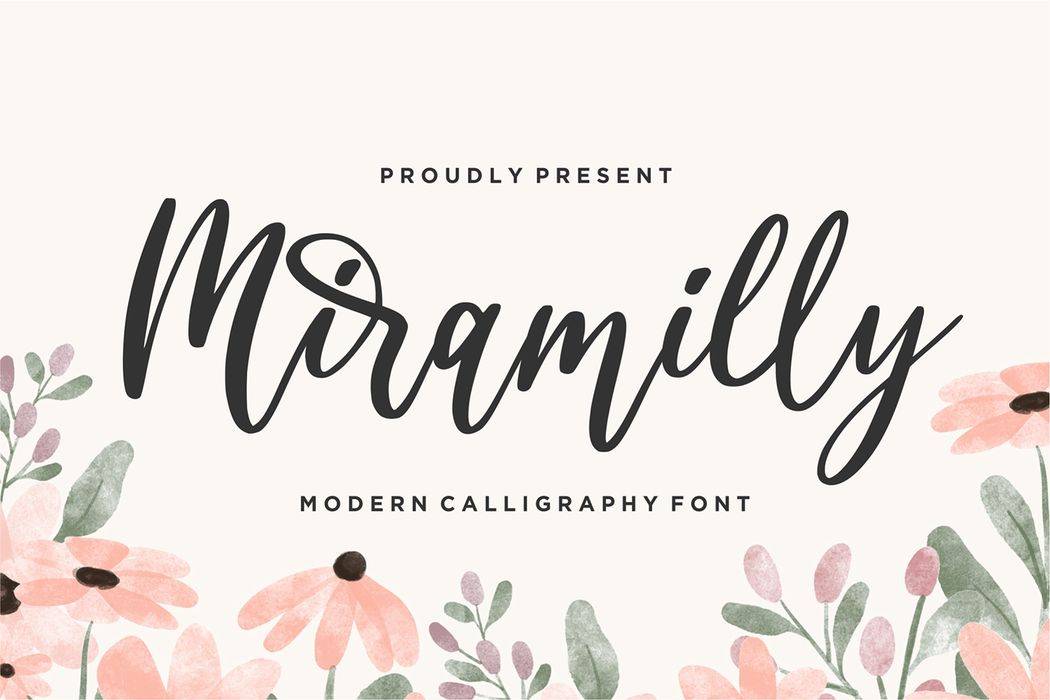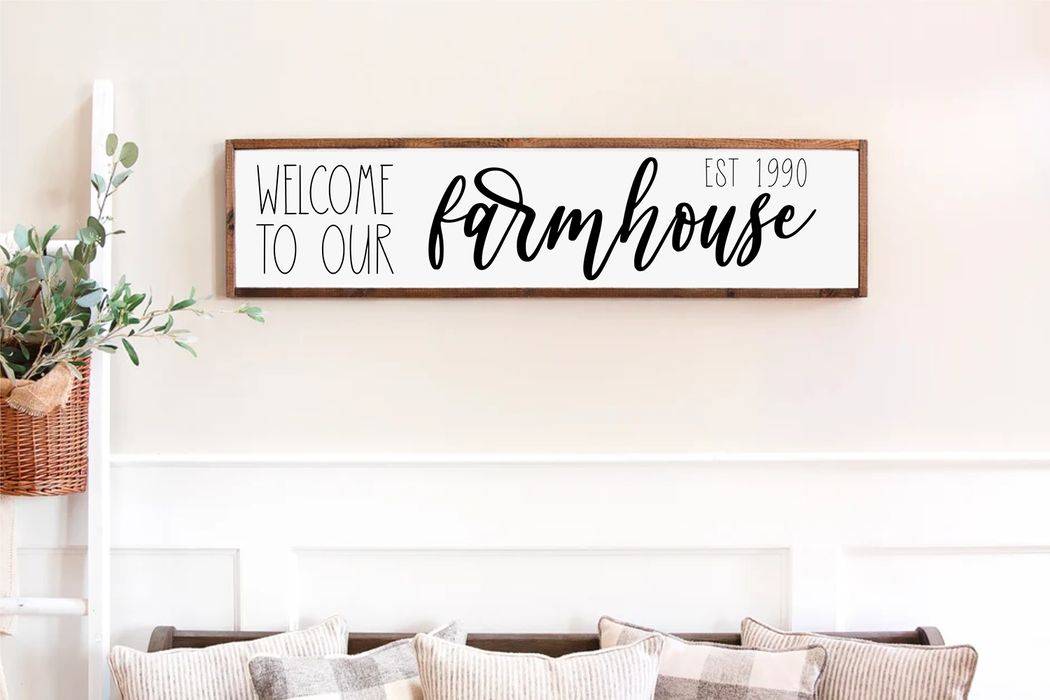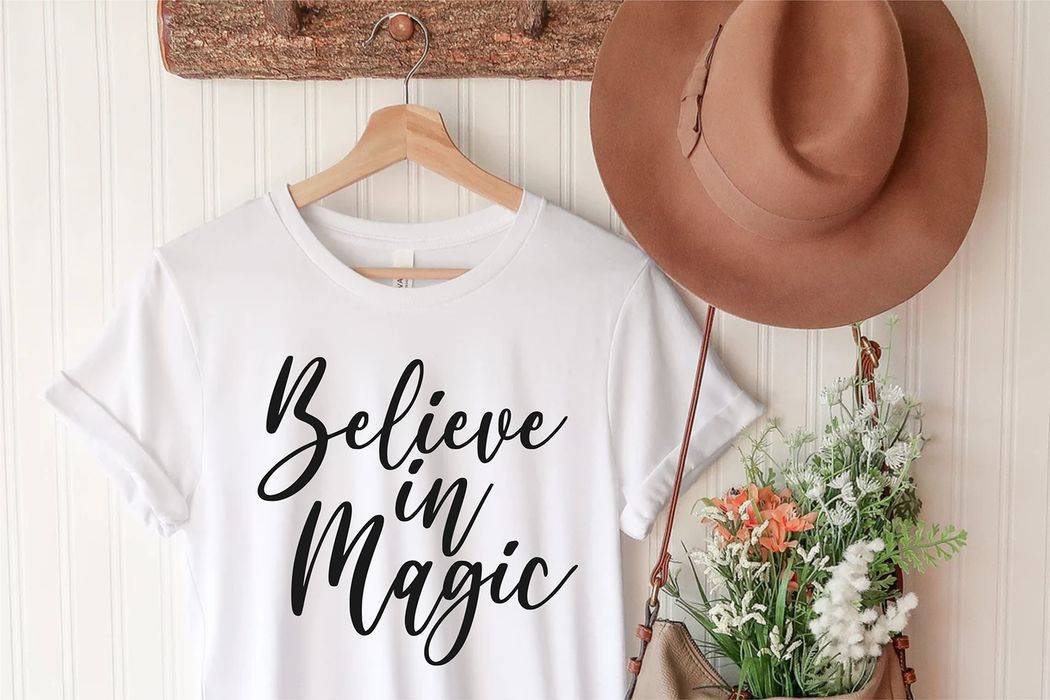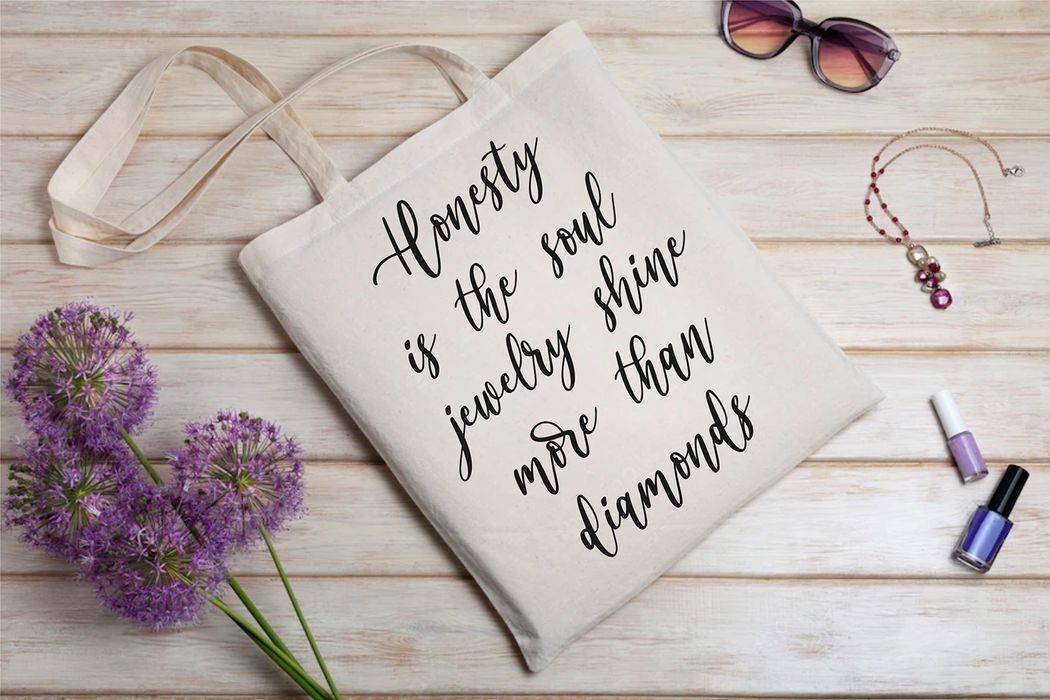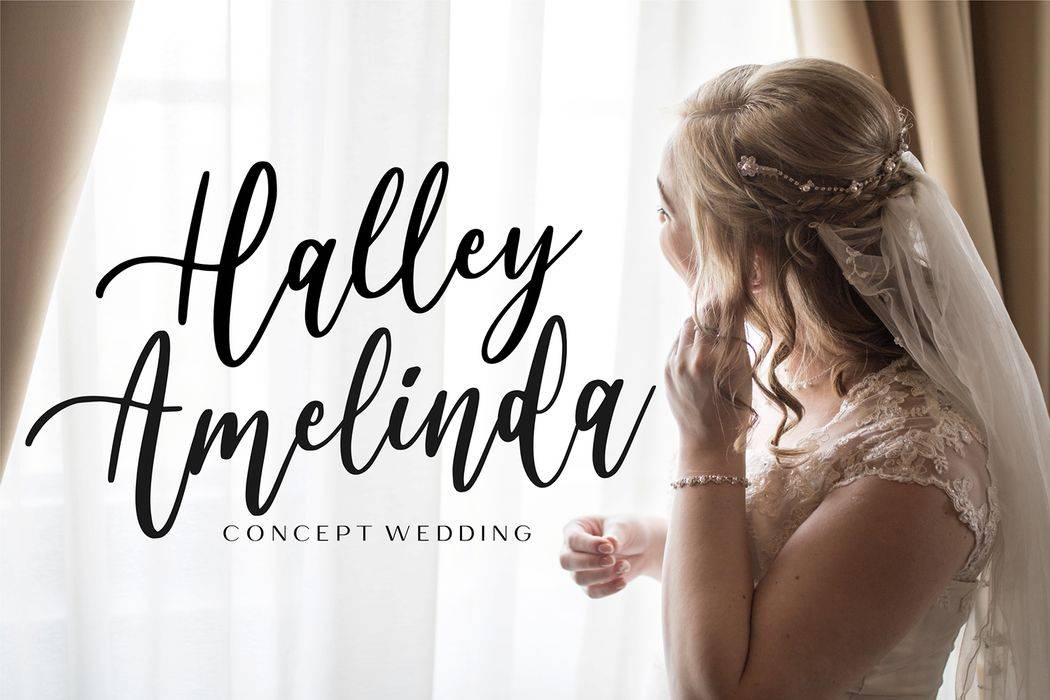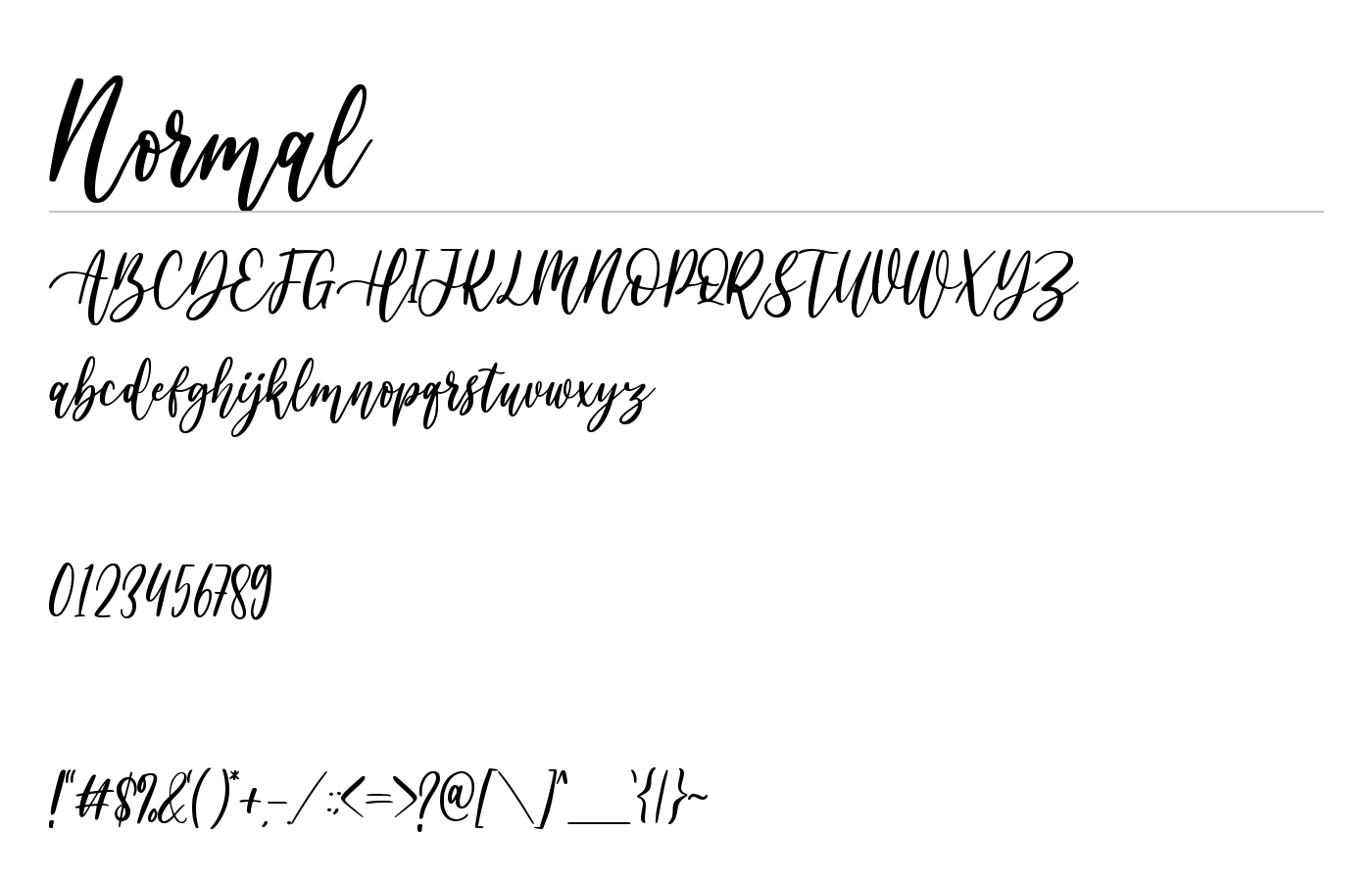
Miramilly is a stylish script font with a handwritten feel, featuring elegant, flowing characters and a moderate contrast in stroke weight. Its tall, narrow letterforms and smooth curves give it a modern yet personal touch, making it ideal for branding, invitations, and creative headlines that want to convey warmth and sophistication. This font works well where a graceful, friendly vibe is desired, especially in fashion, beauty, and lifestyle contexts.